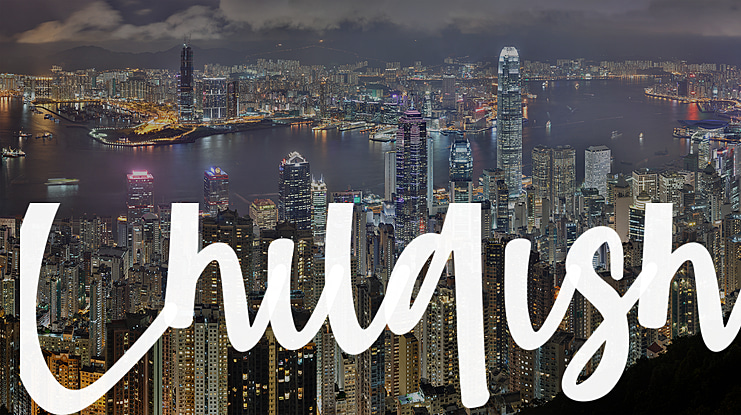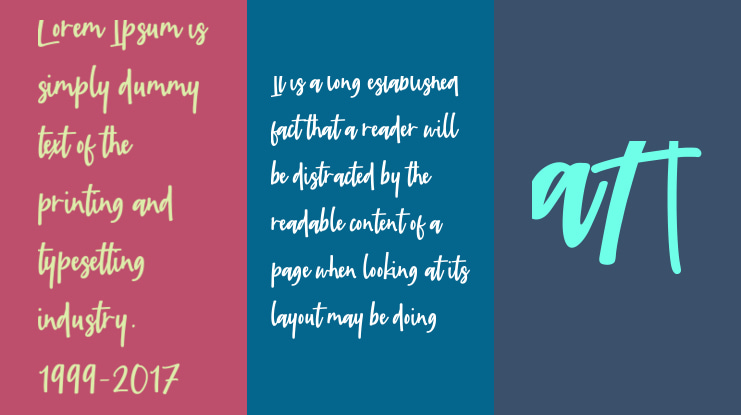
Childish Font
Proudly Present, Childish Font.
Childish is a Sweet Handwritten Font. This sweet font has nice smooth lines.
Childish is perfect for product packaging, branding project, megazine, social media, wedding, or just used to express words above the background.